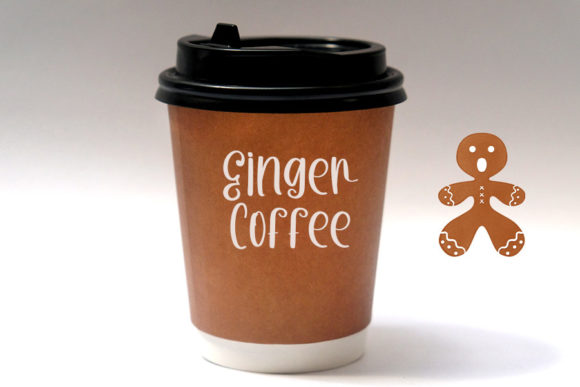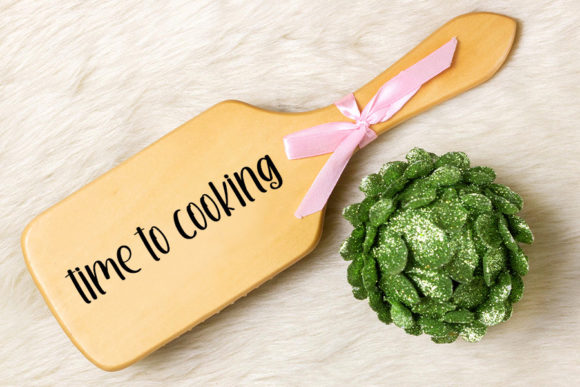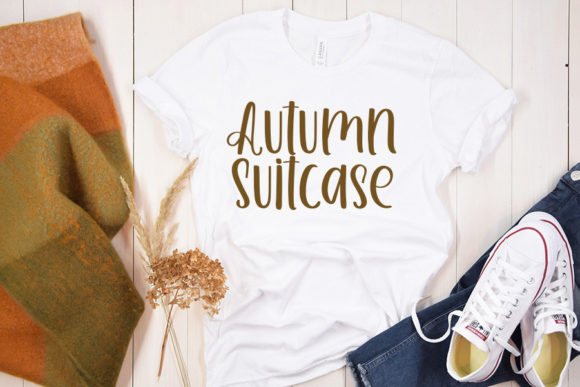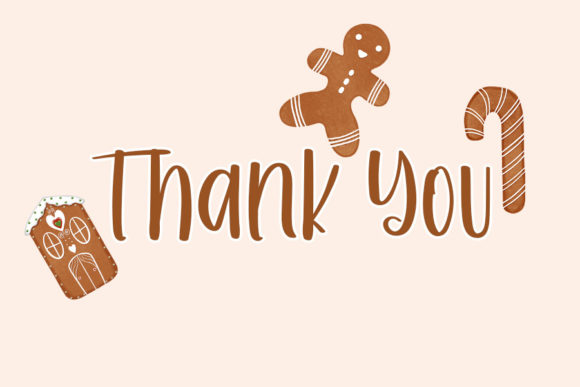
Ginger Bread Font: The Perfect Addition to Your Design Toolbox
Are you a designer or crafter looking for a unique and versatile font to elevate your projects? Look no further than the Ginger Bread Font! This chic, casual, and relaxed handwritten font is perfect for a wide range of designs, from holiday-themed crafts to everyday branding materials.
What is Ginger Bread Font?
Ginger Bread Font is a beautifully crafted handwritten font that exudes a sense of warmth and approachability. Its natural and unique style makes it incredibly fitting for a large pool of designs, from rustic and vintage-inspired projects to modern and playful ones. The font’s relaxed and casual vibe is perfect for designers and crafters who want to add a personal touch to their work.
Key Features of Ginger Bread Font
- Handwritten style: Ginger Bread Font is a handwritten font that mimics the natural flow of handwriting, giving it a personal and organic feel.
- Unique and distinctive: The font’s unique style sets it apart from more traditional fonts, making it perfect for designers and crafters who want to stand out.
- Versatile: Ginger Bread Font can be used for a wide range of projects, from holiday-themed crafts to everyday branding materials.
- Easy to read: Despite its handwritten style, Ginger Bread Font is easy to read, making it perfect for use in body text and other applications where legibility is important.
Uses for Ginger Bread Font
Ginger Bread Font is incredibly versatile, and its uses are limited only by your imagination! Here are a few ideas to get you started:
- Holiday crafts: Ginger Bread Font is perfect for holiday-themed crafts, such as Christmas cards, Halloween decorations, and Easter egg designs.
- Branding and packaging: The font’s unique style makes it perfect for use in branding and packaging materials, such as logos, labels, and product packaging.
- Stationery and invitations: Ginger Bread Font is perfect for use in stationery and invitations, such as birthday cards, wedding invitations, and baby shower announcements.
- Digital design: The font can be used in digital design, such as website headers, social media graphics, and email newsletters.
Tips for Using Ginger Bread Font
Here are a few tips for getting the most out of Ginger Bread Font:
- Experiment with different colors: Ginger Bread Font looks great in a variety of colors, from bright and bold to soft and pastel.
- Mix and match with other fonts: The font pairs well with other fonts, so don’t be afraid to experiment with different combinations.
- Use it to add a personal touch: Ginger Bread Font is perfect for adding a personal touch to your designs, such as in a handwritten-style blog post or social media graphic.